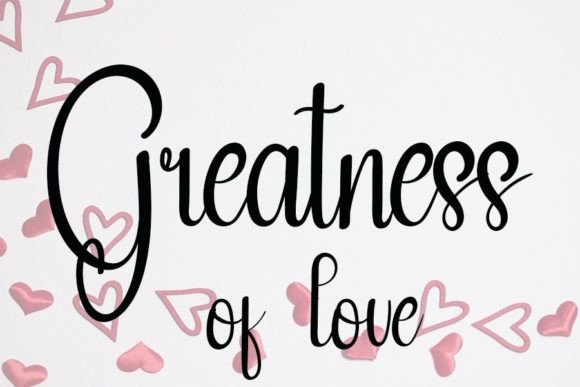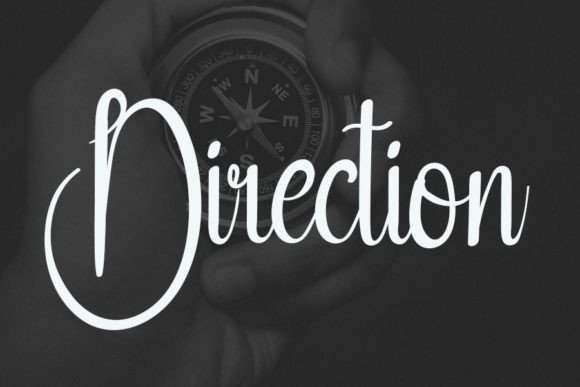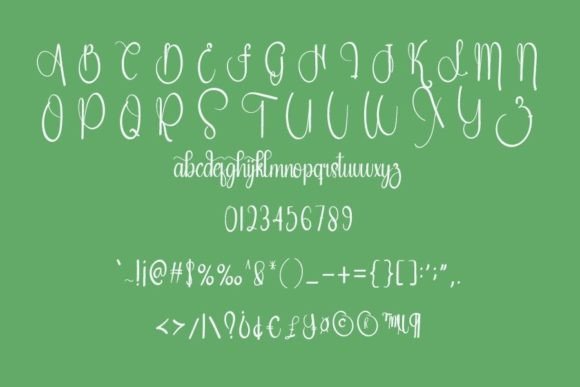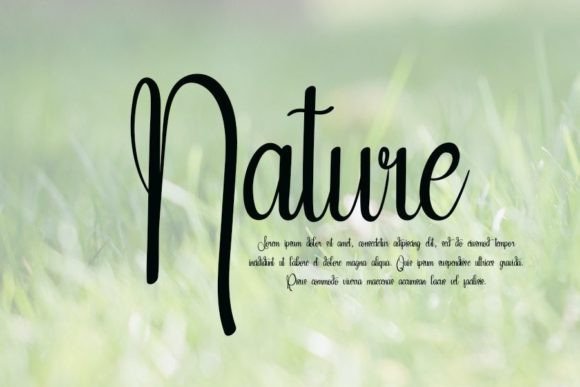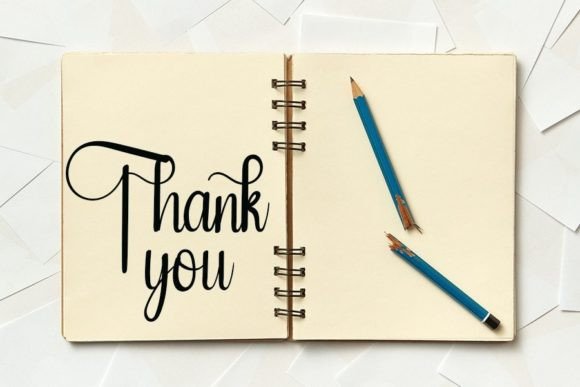
Discover the Timeless Charm of Antique Font
Are you a designer or crafter looking for a unique and versatile font to add a touch of elegance to your creative projects? Look no further than Antique Font, a beautiful handwritten font that exudes a sense of sophistication and refinement. With its distinctive feel and stunning impact, Antique Font is the perfect addition to any design or craft project.
What is Antique Font?
Antique Font is a carefully crafted handwritten font that boasts a unique and captivating style. Its elegant lines, subtle curves, and classic charm make it an ideal choice for a wide range of creative projects, from digital designs to handmade crafts. Whether you’re working on a logo, invitation, or social media graphic, Antique Font is sure to add a lovely spark to your design.
Key Features of Antique Font
- Unique and Versatile: Antique Font features a distinctive style that sets it apart from other fonts. Its versatility makes it suitable for a variety of creative projects, from formal to informal designs.
- Handwritten with Love: Each letter and character in Antique Font has been carefully handcrafted with love and attention to detail, giving it a personal and authentic feel.
- Elegant and Refined: Antique Font exudes a sense of sophistication and refinement, making it perfect for designs that require a touch of elegance.
- Easy to Read: Despite its ornate style, Antique Font is surprisingly easy to read, making it suitable for both digital and print designs.
Uses of Antique Font
Antique Font is an incredibly versatile font that can be used in a wide range of creative projects, including:
- Logos and Branding: Add a touch of elegance to your logo and branding with Antique Font.
- Invitations and Stationery: Create beautiful invitations, greeting cards, and stationery with Antique Font.
- Social Media Graphics: Add a touch of sophistication to your social media graphics, including Facebook posts, Instagram stories, and Twitter headers.
- Digital Art: Use Antique Font to add a unique and captivating element to your digital art.
- Crafting and Scrapbooking: Add a personal touch to your craft projects, including scrapbooking, journaling, and paper crafting.
Tips for Using Antique Font
To get the most out of Antique Font, here are a few tips to keep in mind:
- Experiment with Sizes: Antique Font looks great in a variety of sizes, from small and delicate to large and bold.
- Pair with Other Fonts: Combine Antique Font with other fonts to create a unique and eye-catching design.
- Use in Combination with Images: Pair Antique Font with beautiful images or illustrations to add an extra layer of depth to your design.
- Don’t Be Afraid to Get Creative: Antique Font is a versatile font that can be used in a wide range of creative projects, so don’t be afraid to experiment and try new things.